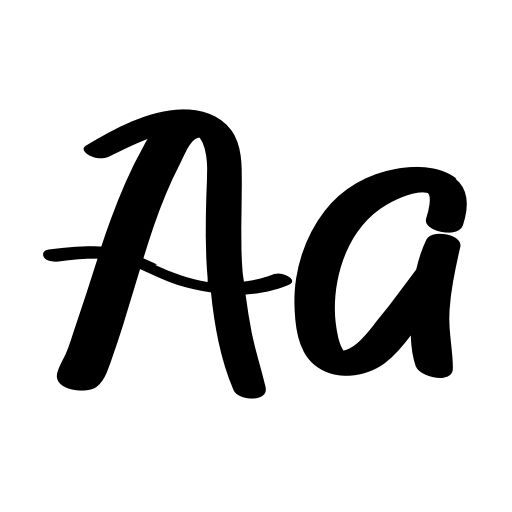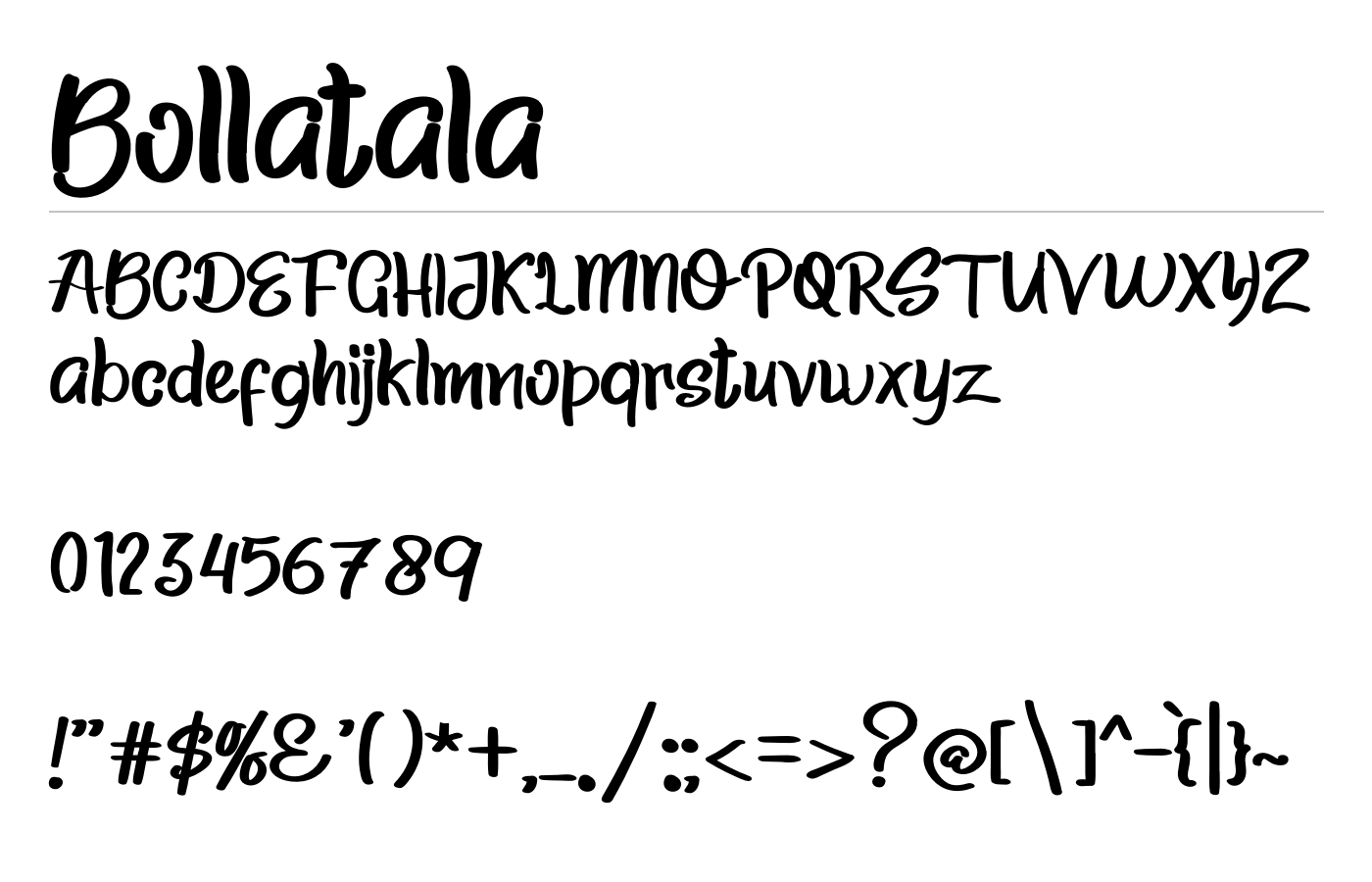
Bollatala is a casual, handwritten script font with a friendly and approachable style. Its smooth, medium-weight strokes and rounded letterforms create a warm and lively feel, making it ideal for playful branding, invitations, and creative projects that seek a personal touch. This font works well in informal contexts where a natural, hand-crafted look adds charm and character.
Bollatala Font
About Bollatala Font